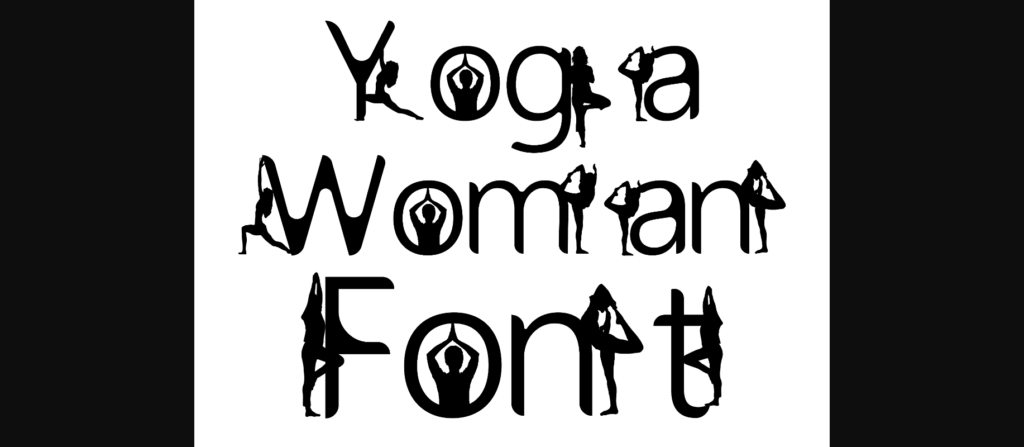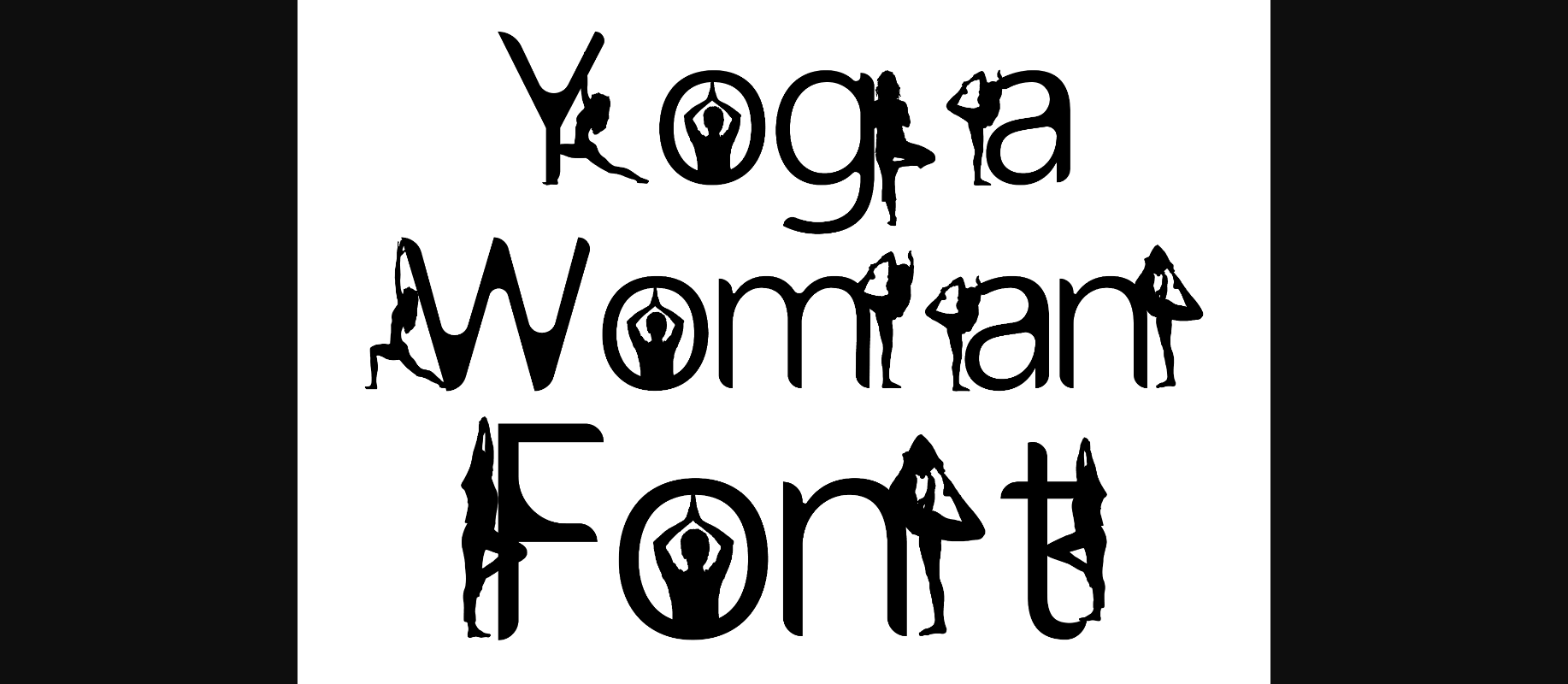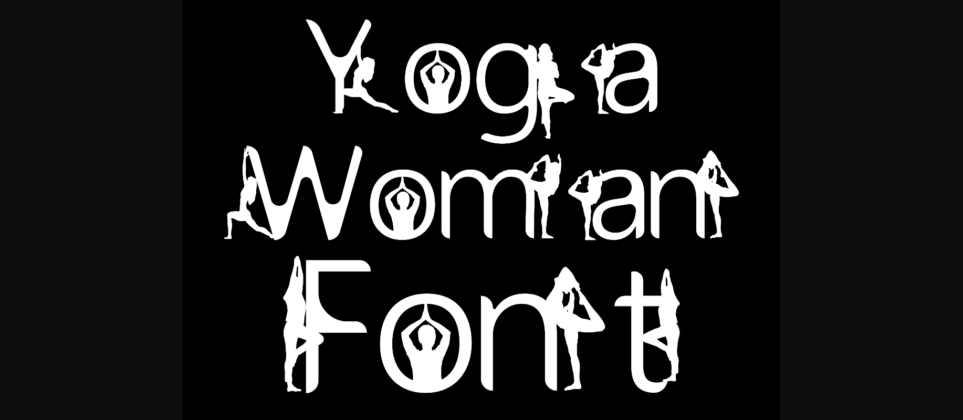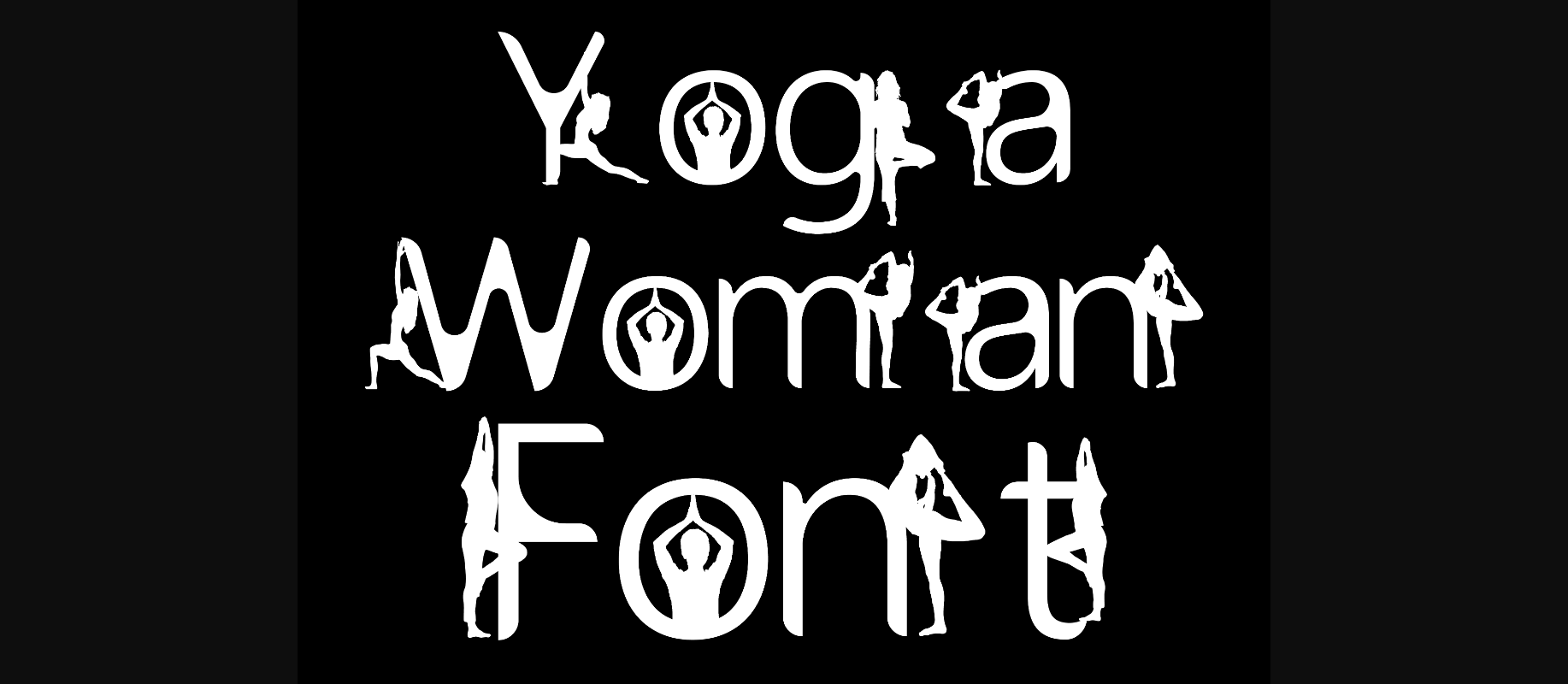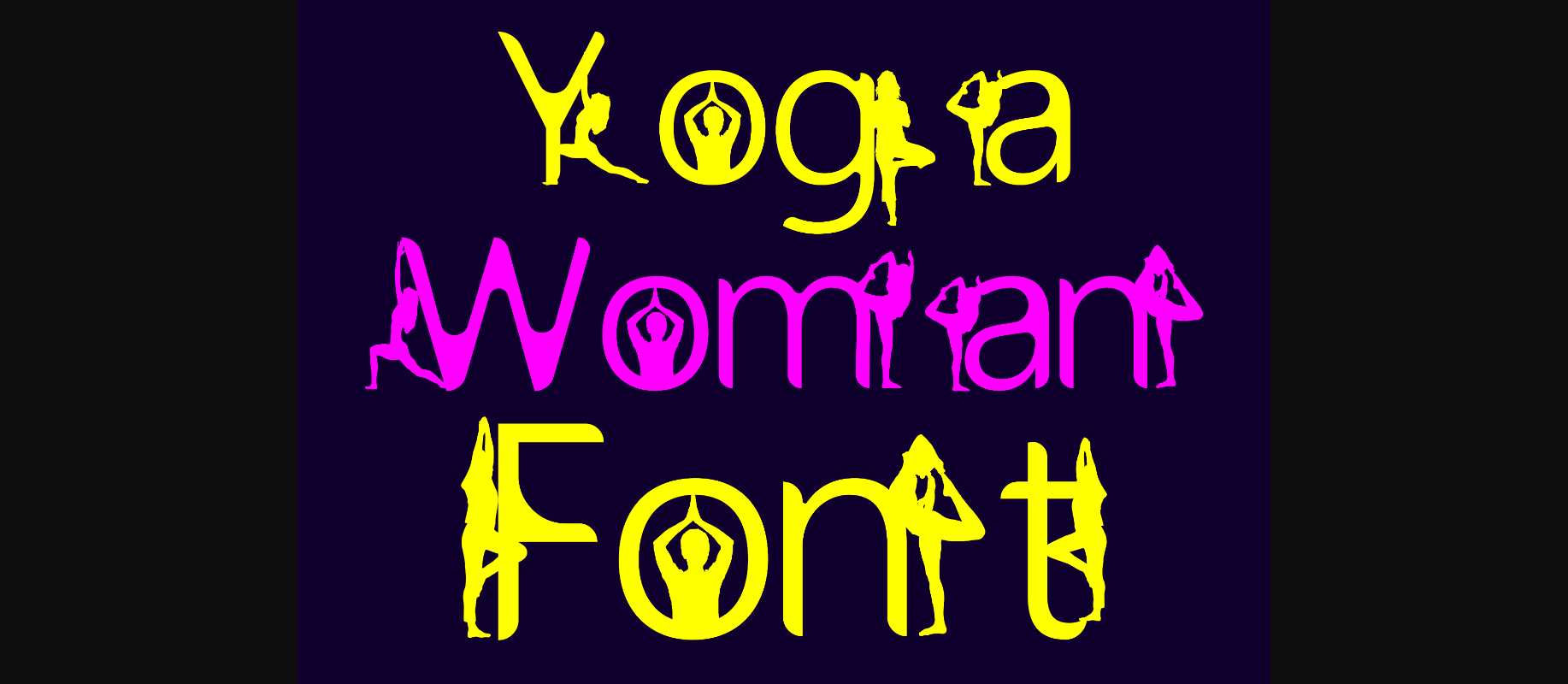
Yoga Woman Font
About Yoga Woman Font
Yoga Woman is a cool and unique decorative font. Add it to your creative ideas and it will instantly add a sense of peace and zen to your designs!